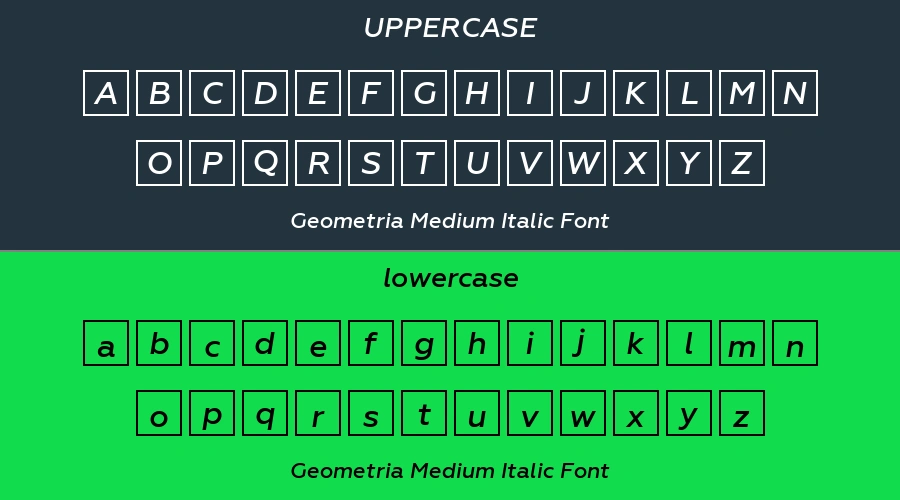
About Geometria Medium Italic Font
Geometria Medium Italic Font embodies typographic excellence through its masterful combination of graceful transitions and emotional appeal. Created for engineering drawings, this typeface delivers exceptional clarity and functional utility across all applications. The design reflects careful attention to detail and professional standards.
Advanced capabilities include distinctive bold expressions and versatile titling alternates, giving designers creative control. When used in section headers, Geometria Medium Italic Font exhibits remarkable impact retention. The harmonious balance between ascender height and technical tradition sets this typeface apart.